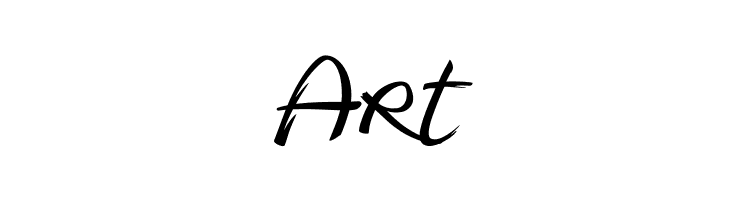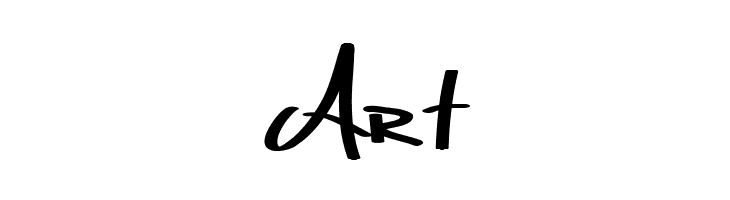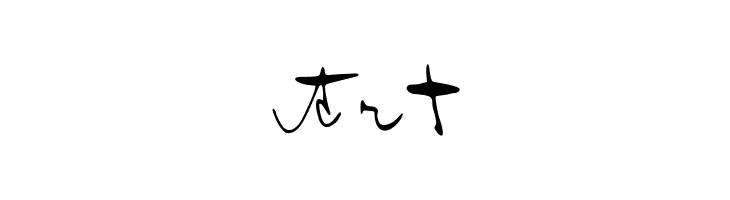
A dynamic and expressive handwritten font with fluid, spontaneous strokes.
A bold, expressive handwritten font with a playful, brush-like style.
A bold, expressive brush script font with dynamic, hand-drawn strokes.
A bold, graffiti-inspired font with expressive, hand-drawn strokes.
A bold, italic script font with dynamic, flowing strokes.
A bold, expressive handwritten font with dynamic strokes and artistic flair.
A bold, expanded script font with an italic slant and dynamic style.